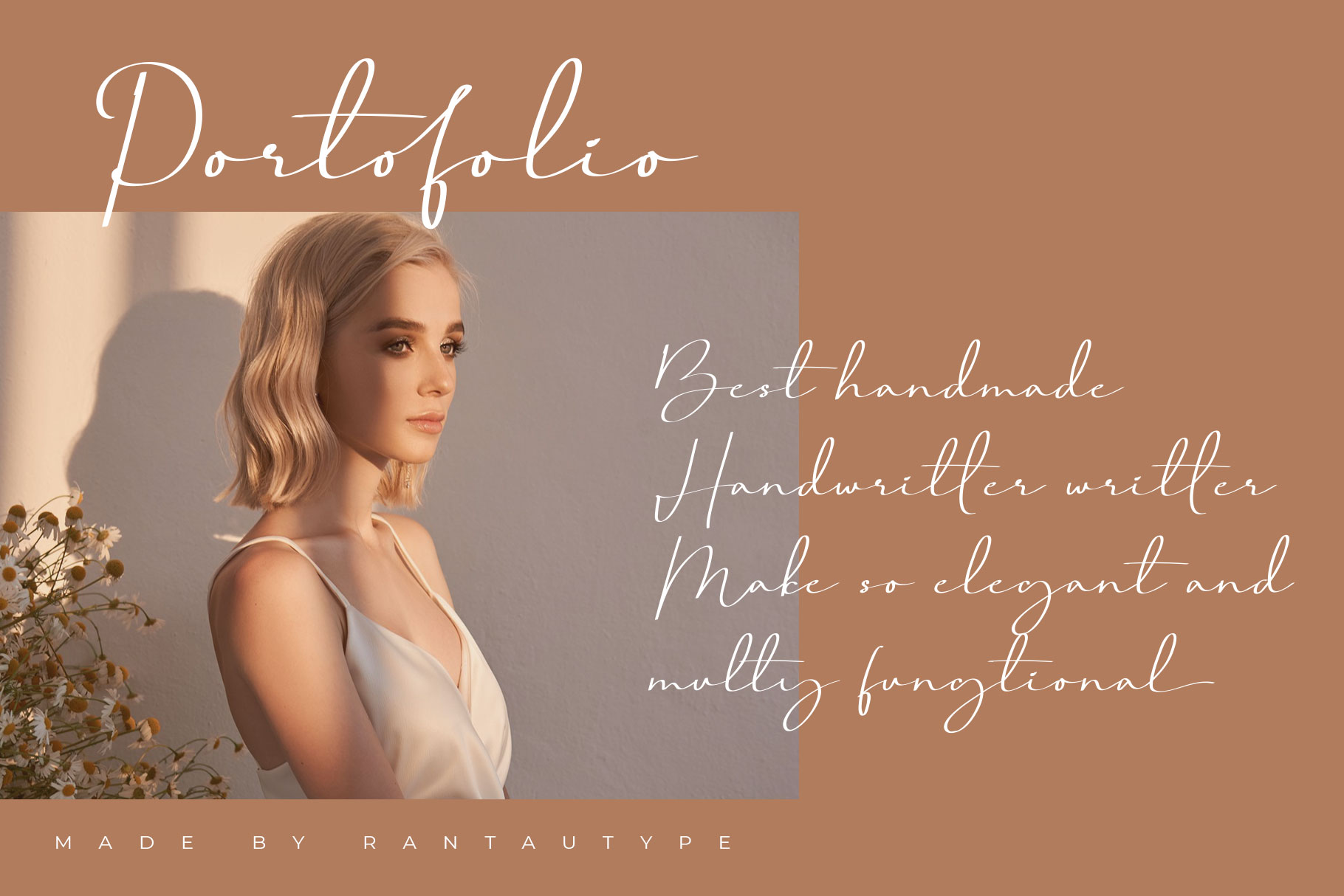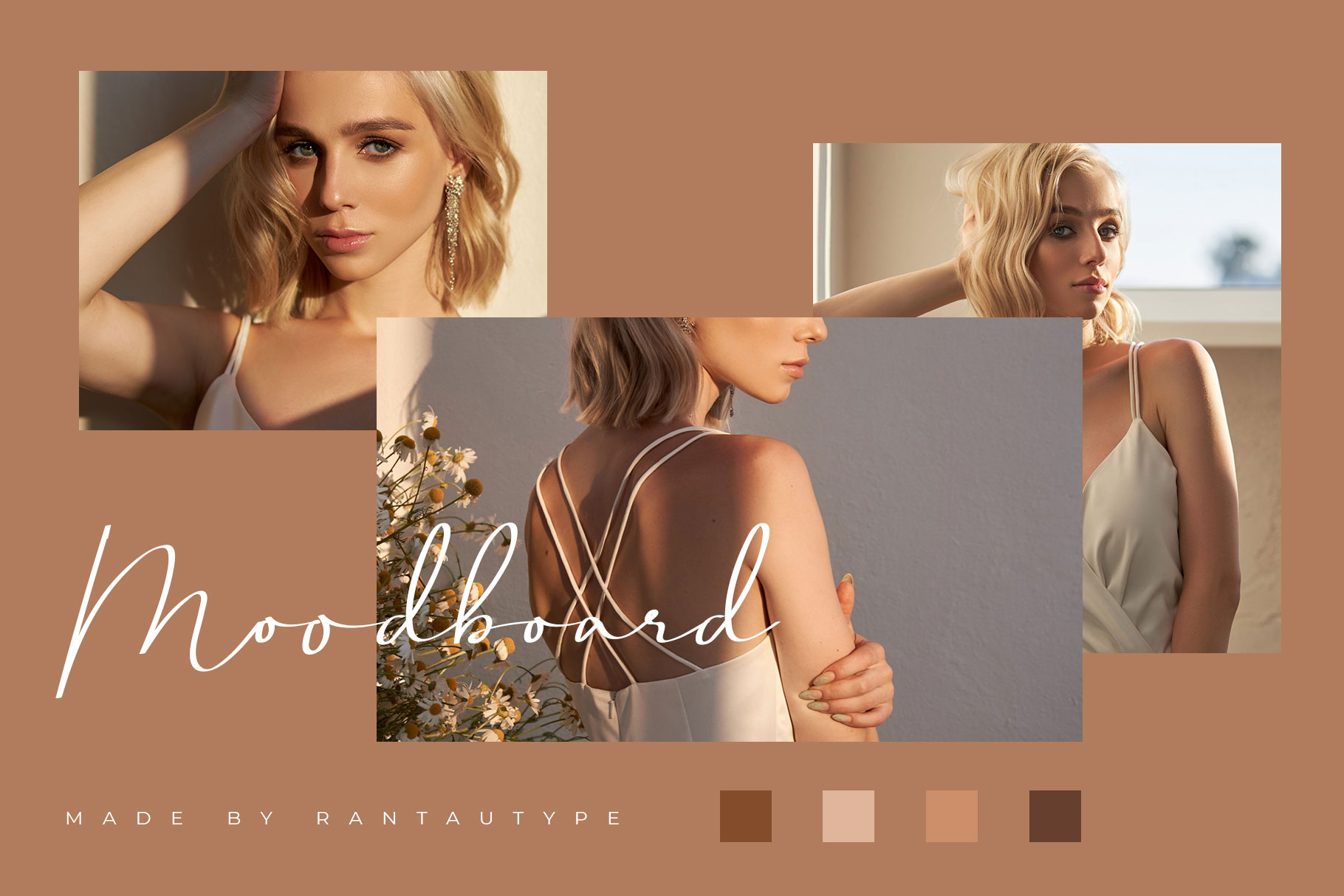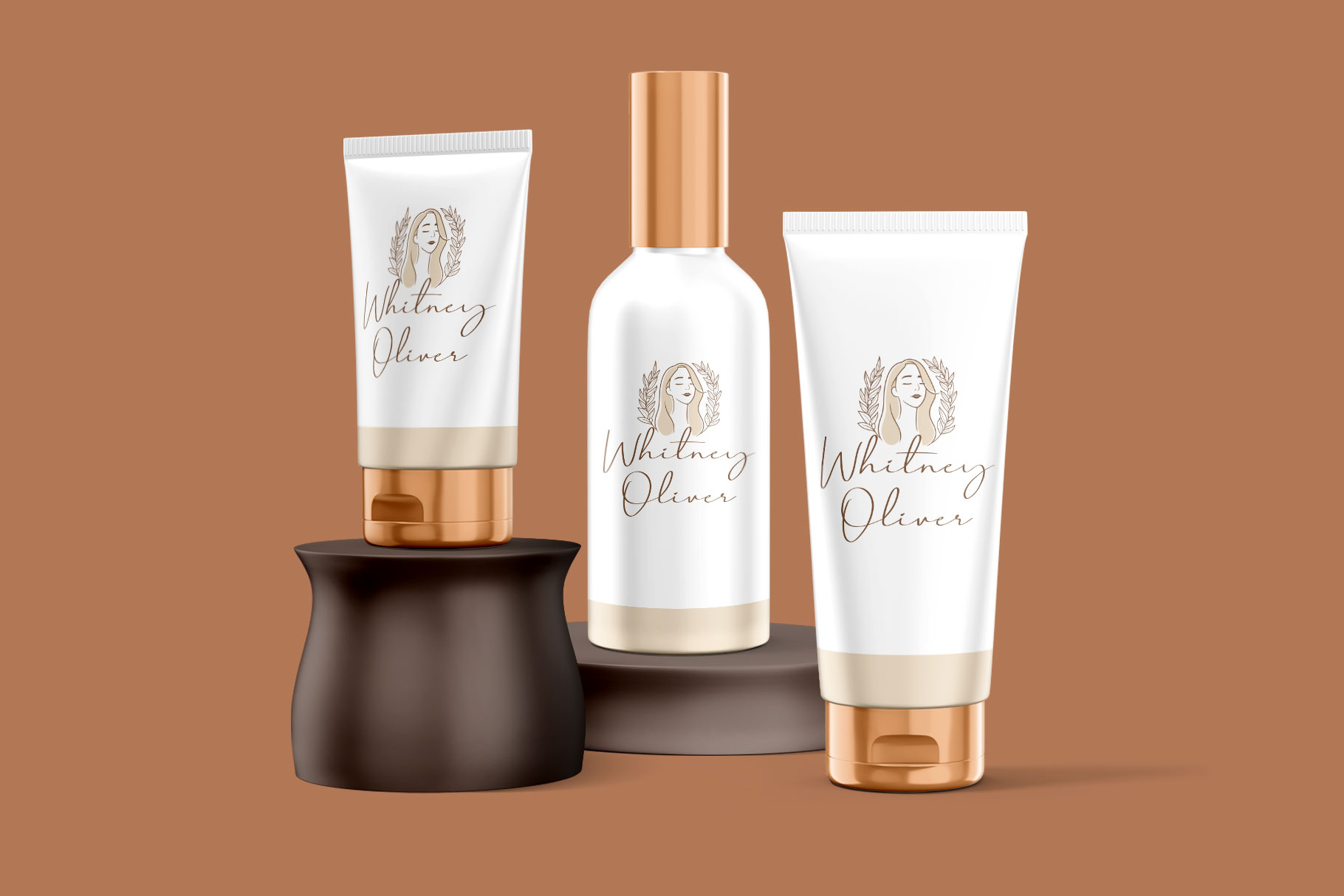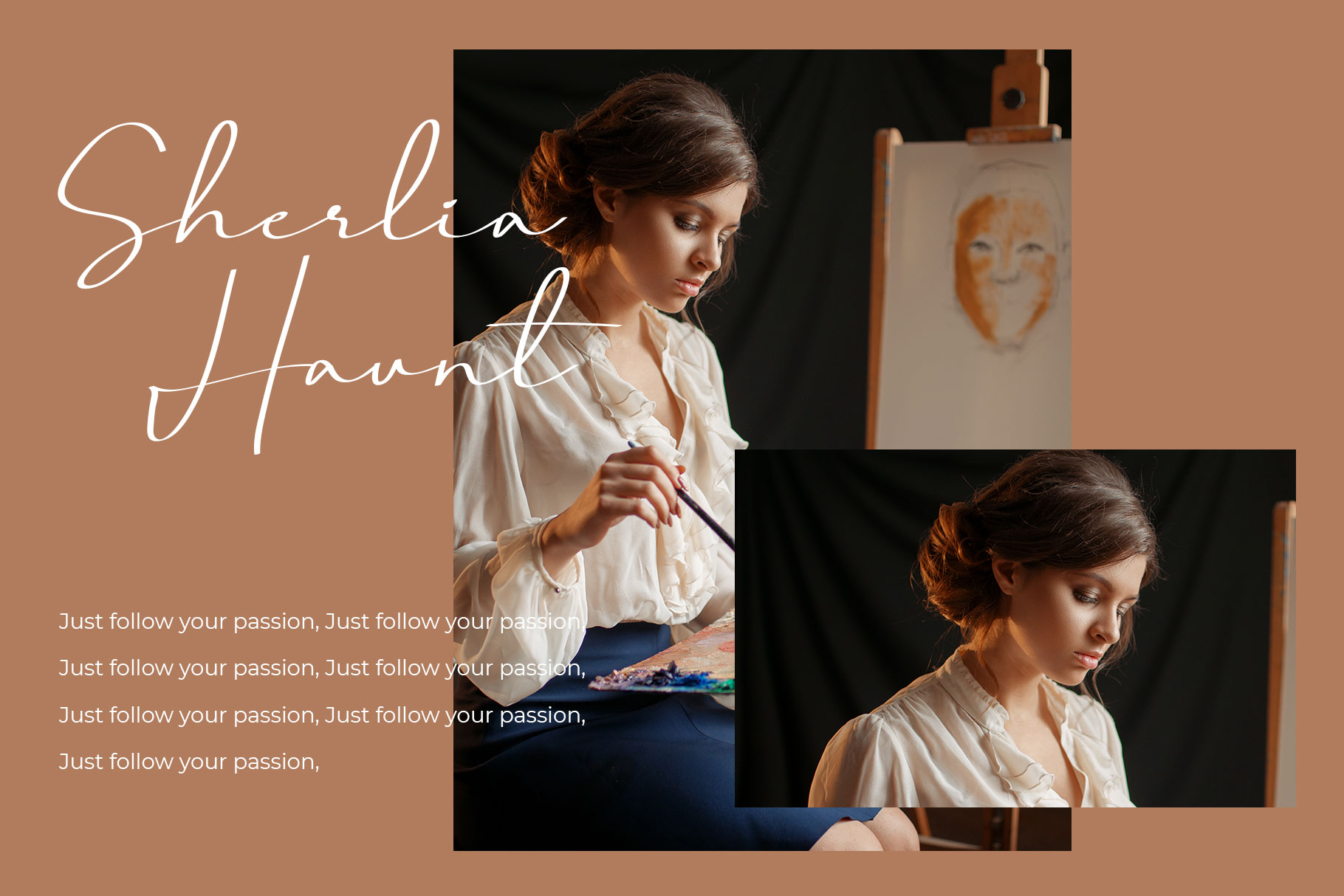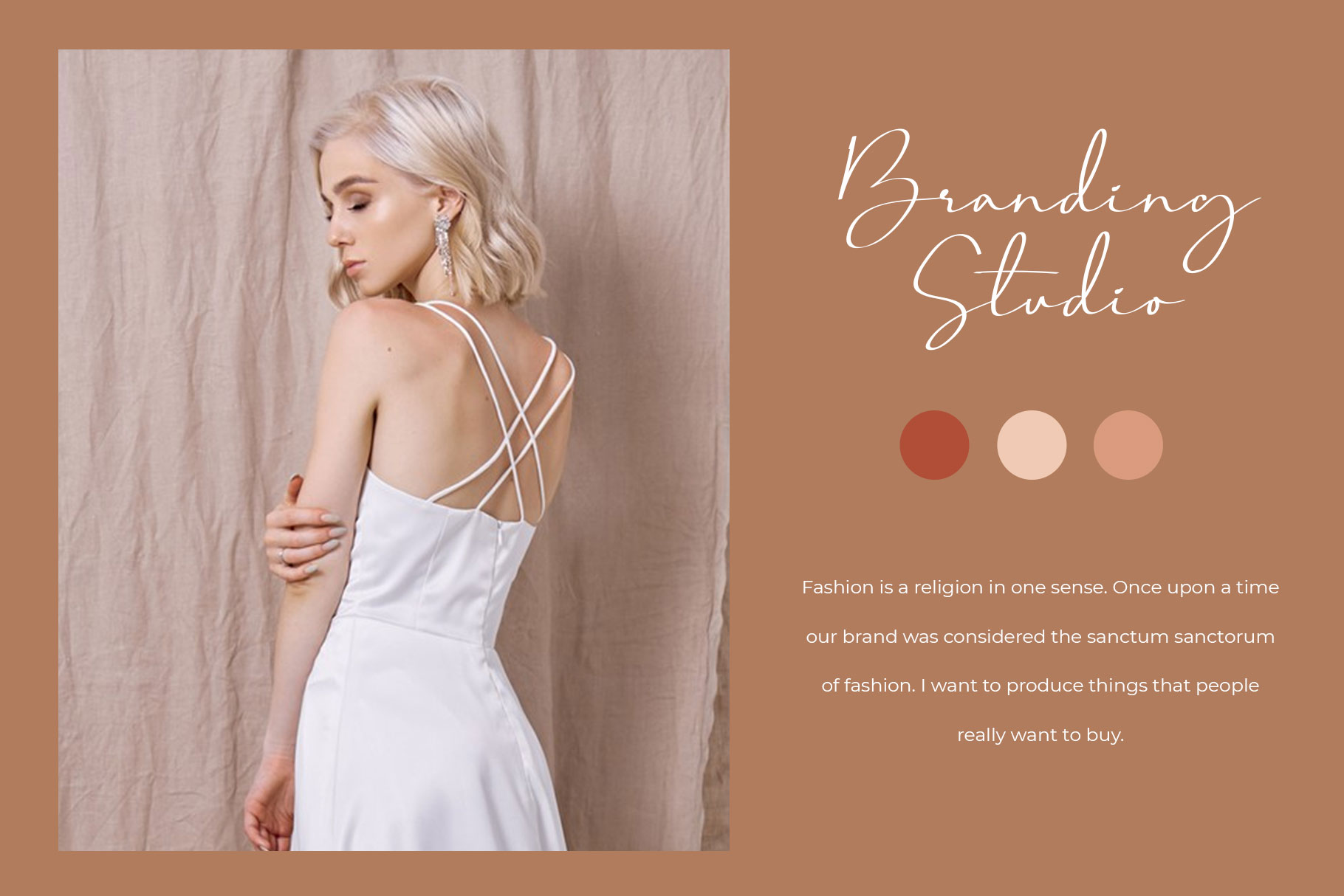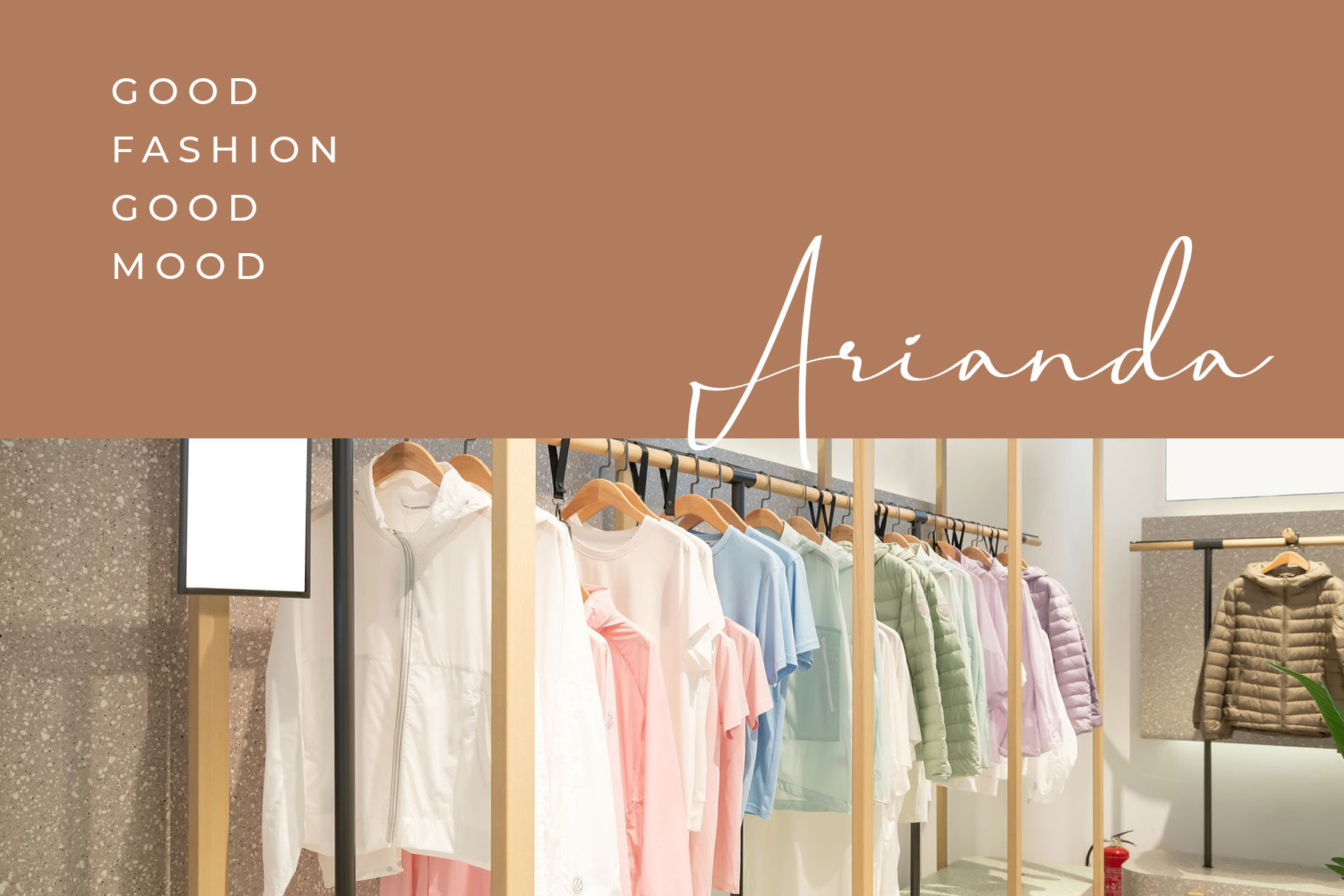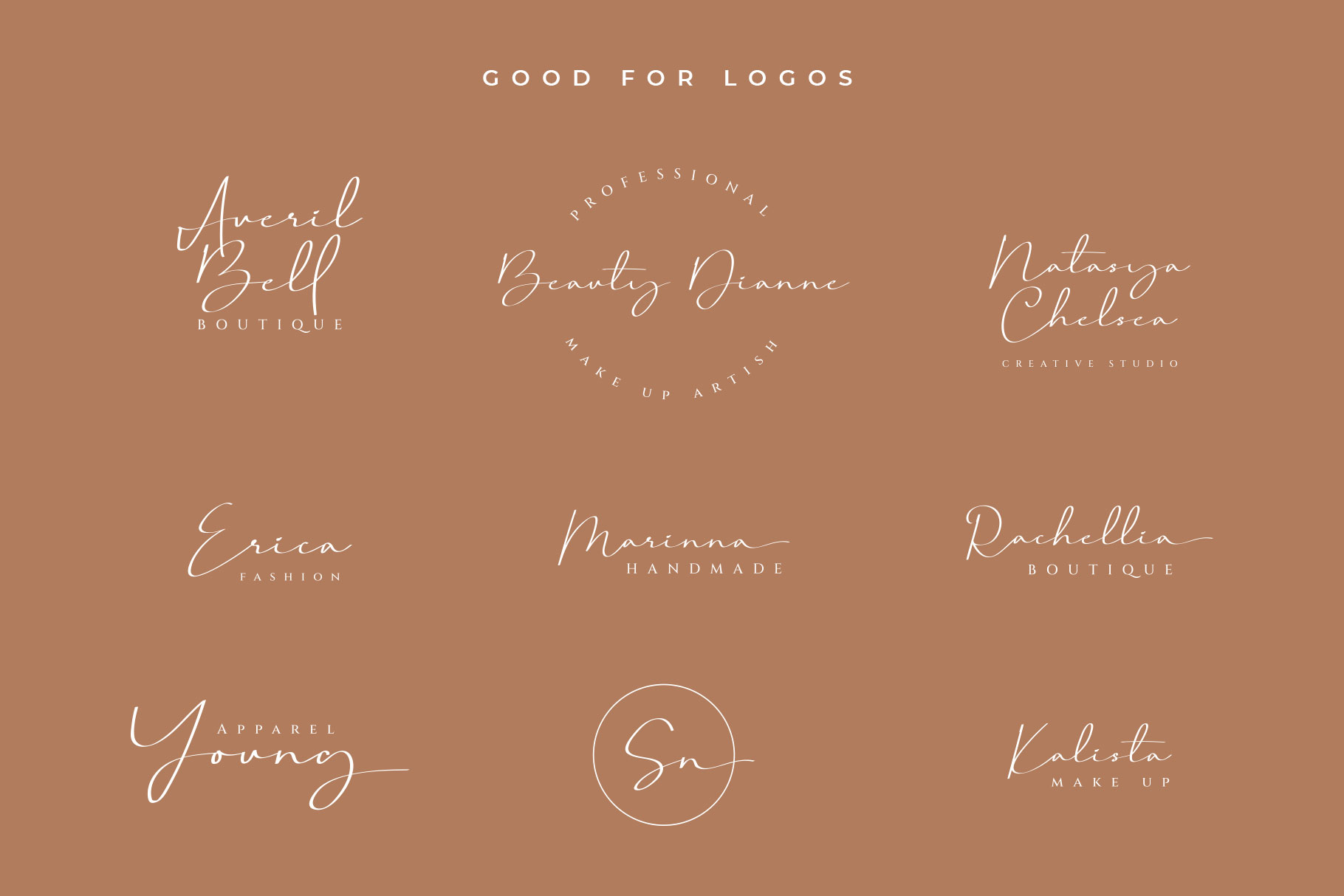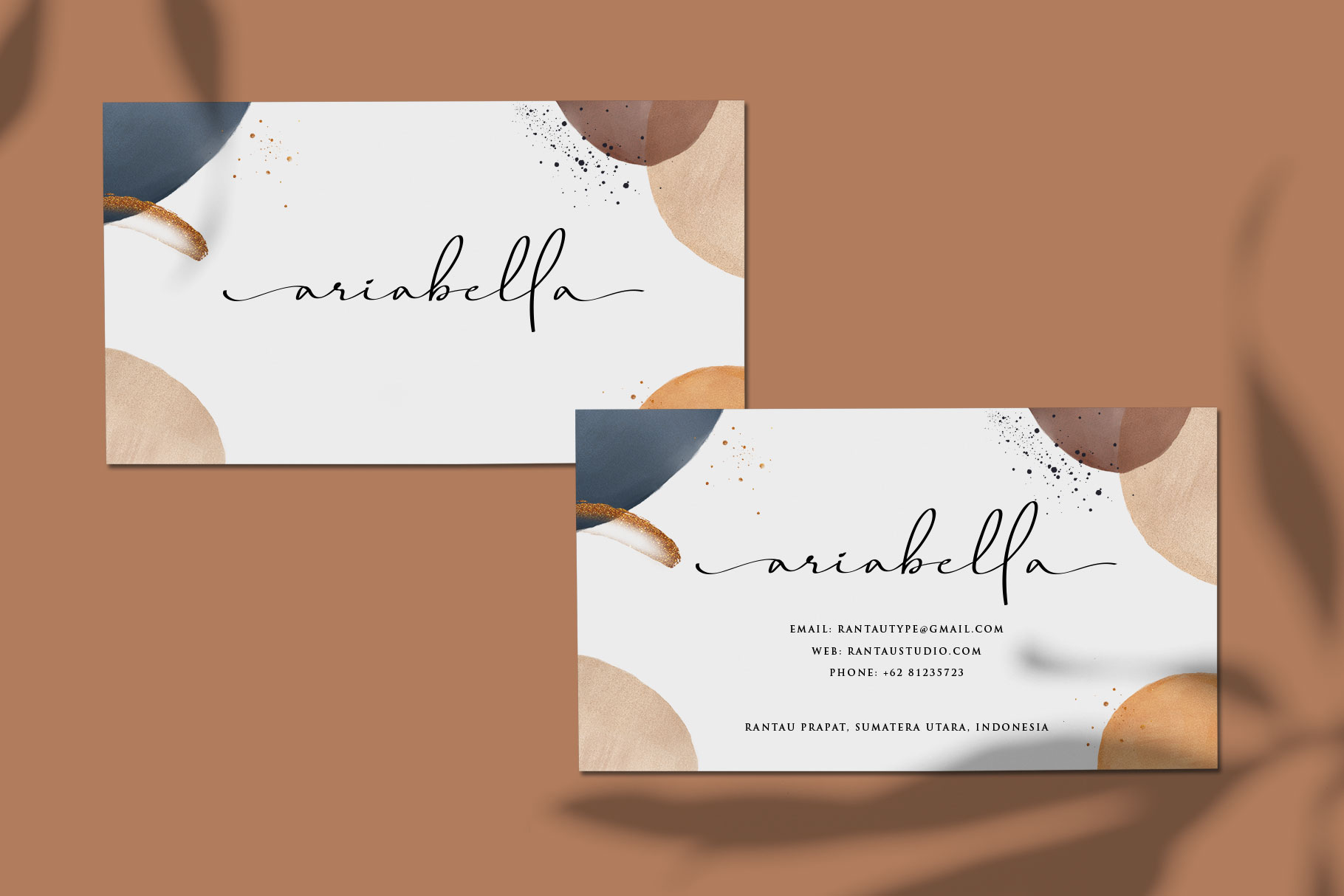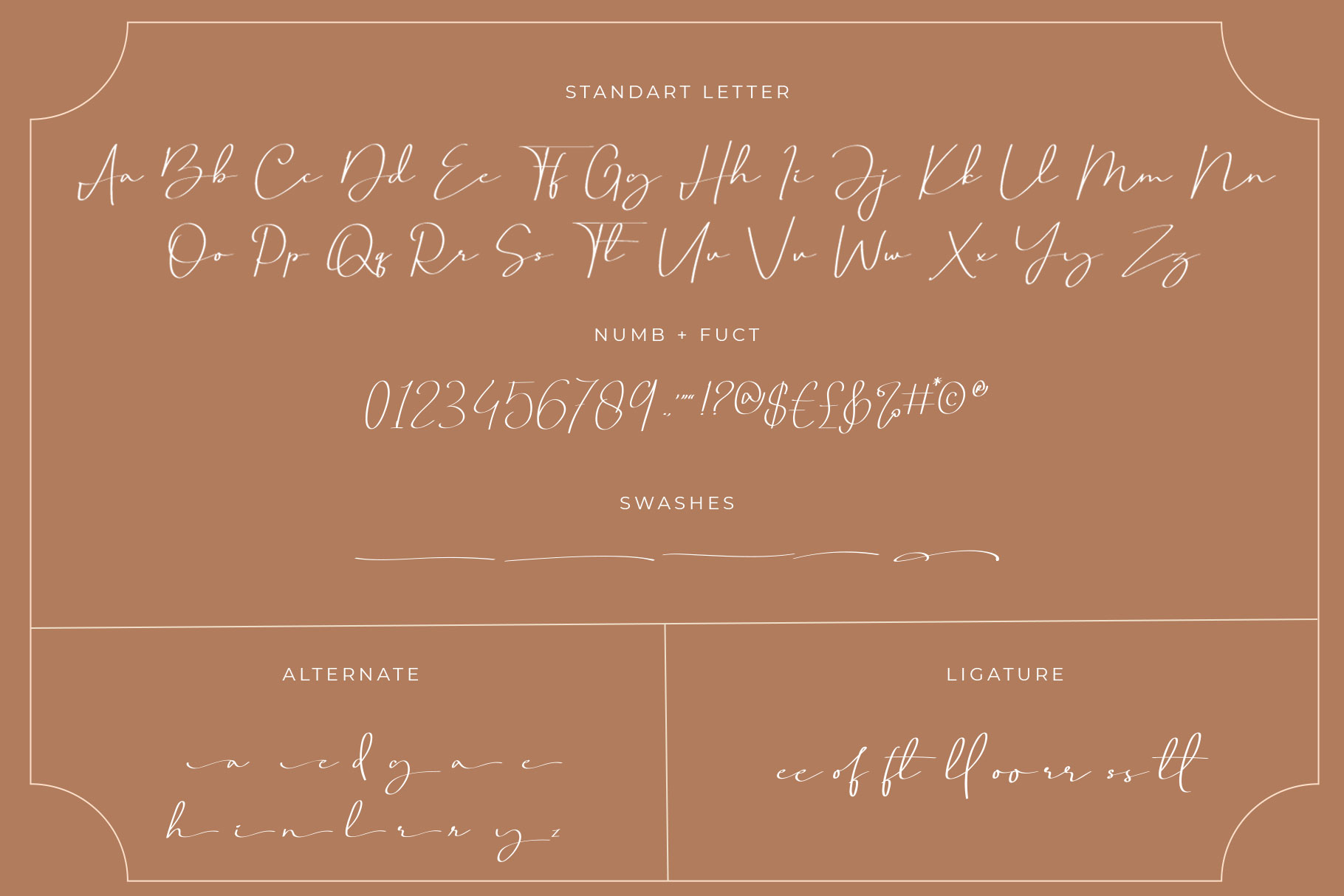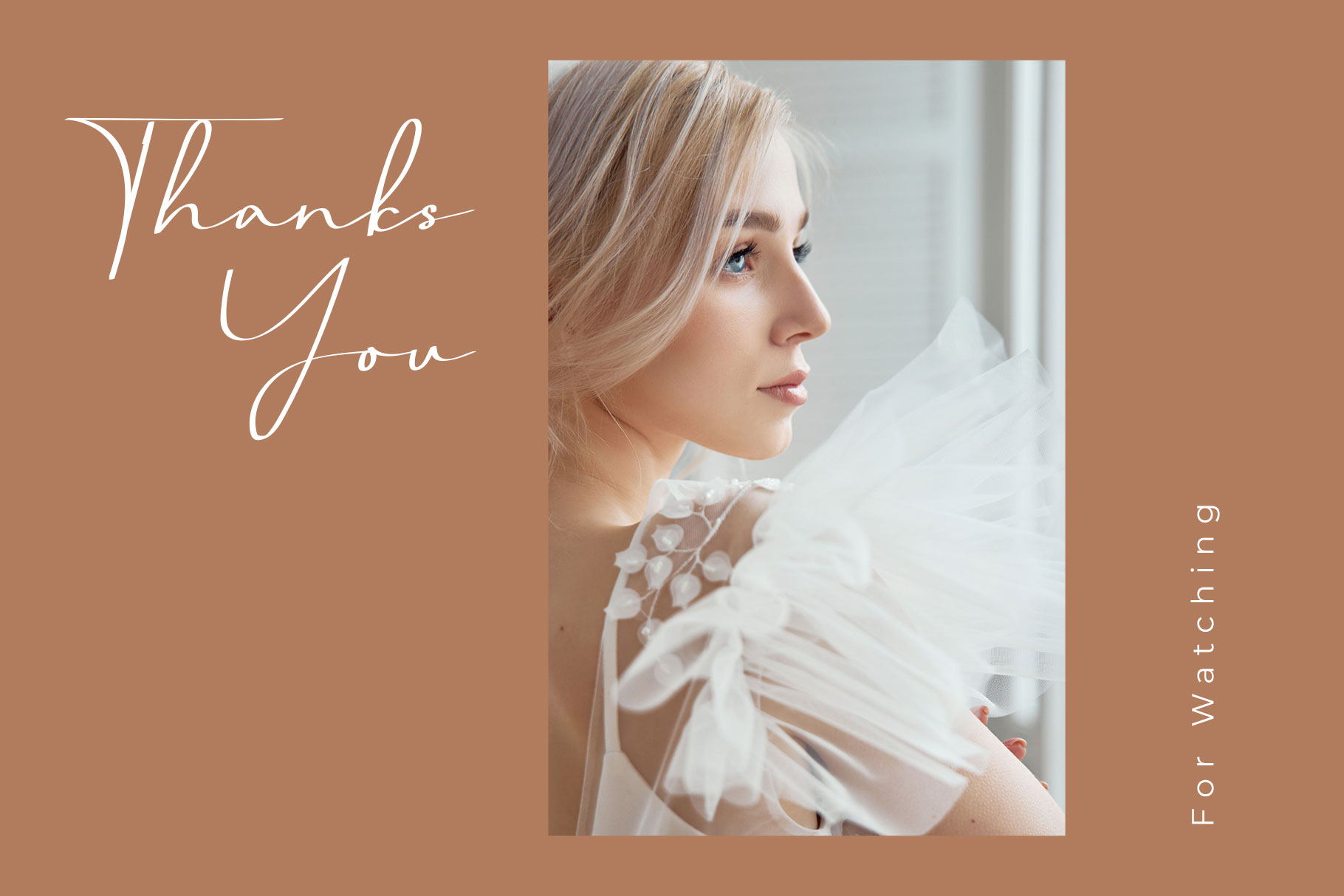
Brittney Queen Handwritten font
This font reflects a beautiful and elegant woman which can be interpreted professional. we keep this font looks elegant, classy, readable, stylish, catchy and easy to use. Brittney Queen is the great choice for watermark on photography, signature or signature logo design, quotes, album cover, business card and many other design project. Brittney Queen is here to make your work to high level!!!
• Basic Latin A-Z and a-z
• Swashes